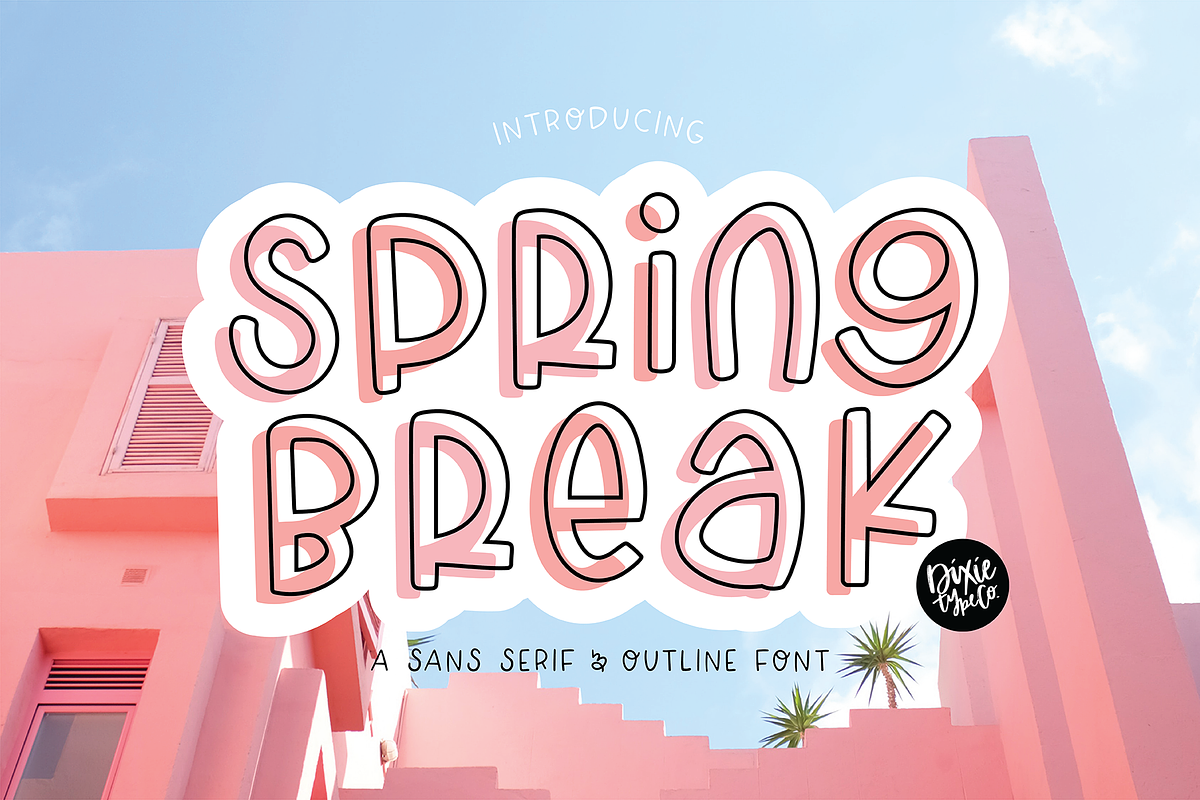
You must purchase this font for commercial use. However, you can download SPRING BREAK Sans Serif Outline Duo Font Free Download for testing purposes. SPRING BREAK is a bold and dynamic sans serif font duo that includes both solid and outline styles, perfect for creating high-impact designs with a modern and energetic feel. Ideal for branding, posters, logos, social media content, and event designs, this font adds a creative touch to any project that needs a fresh, stylish vibe.
The solid font provides boldness and visibility, while the outline version adds a sleek, airy look, offering versatility for your typography compositions. Whether you're working on a summer campaign, a vibrant logo, or a trendy promotional design, SPRING BREAK Sans Serif Outline Duo Font is sure to make your text pop with style and personality.